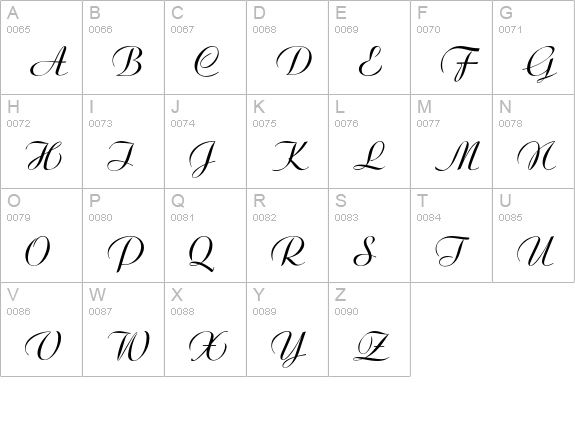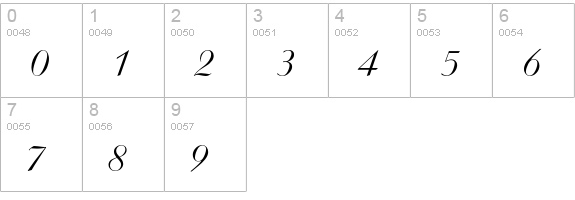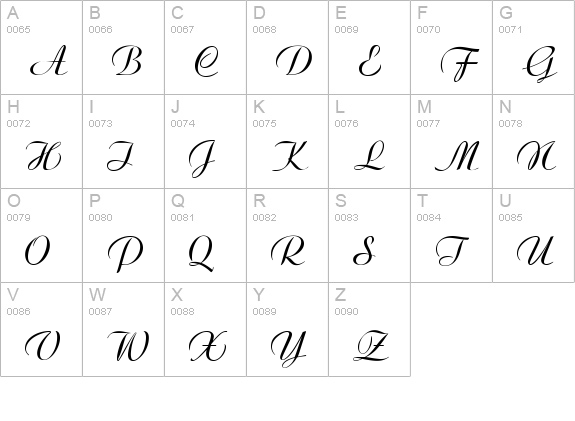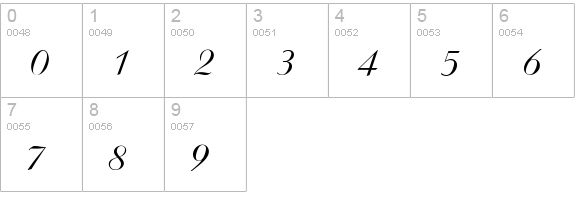
Ariston Regular Font Details
Ariston Regular is the standard, neutral variant in the Ariston typeface family \xE2\x80\x94 well suited to general body text, paragraphs, and standard typographic work.
Ariston Regular font is a versatile and elegant typeface that exudes sophistication and charm. With its clean lines and classic design, this font is perfect for a wide range of design projects, from branding to editorial layouts. Its timeless appeal makes it a popular choice for designers looking to add a touch of refinement to their work. What sets Ariston Regular font apart is not just its aesthetic appeal, but also the fact that it is completely free to download. That's right - you can get your hands on this beautiful font at no cost at FontsMarket.com. Whether you're a seasoned professional or a budding designer, Ariston Regular font is a valuable addition to your font library. So don't miss out on this fantastic opportunity to elevate your designs with this stunning typeface, available for free download now!